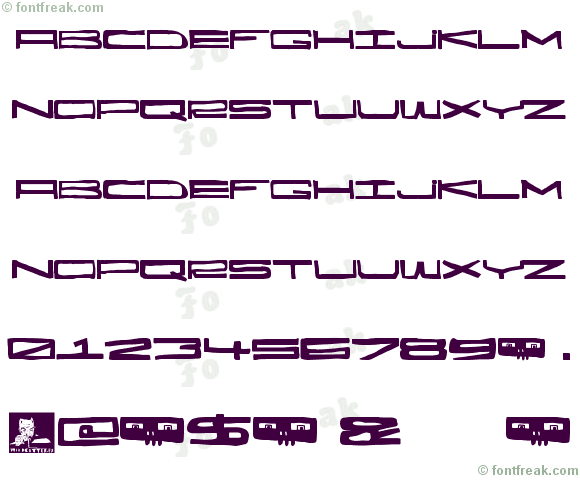
Hecatombe
About Hecatombe
Hecatombe is a striking display typeface designed by woodcutter Manero, released under a freeware license. This font belongs to the decorative category, characterized by its bold, distinct strokes that capture attention and evoke a sense of drama. The Hecatombe font features a unique visual style with a heavy stroke weight and an uneven contrast that adds an organic feel to its overall appearance. The letters are spaced moderately, allowing for clarity while maintaining an impactful presence, making it ideal for various applications.
This versatile typeface shines in several use cases. It is perfect for creating eye-catching movie posters, where its bold presence can evoke emotion and intrigue. Additionally, Hecatombe works wonderfully for restaurant menus, giving a unique flair that complements culinary themes. Its distinctive character makes it suitable for branding small businesses looking to stand out, as well as for promotional materials that demand attention. Content creators can also leverage the font in social media graphics, ensuring their posts are visually striking and memorable.
The target audience for Hecatombe includes graphic designers, small business owners, and content creators who seek a unique typeface that enhances their projects. The font's dramatic style appeals to those who want to make a statement with their visual branding.